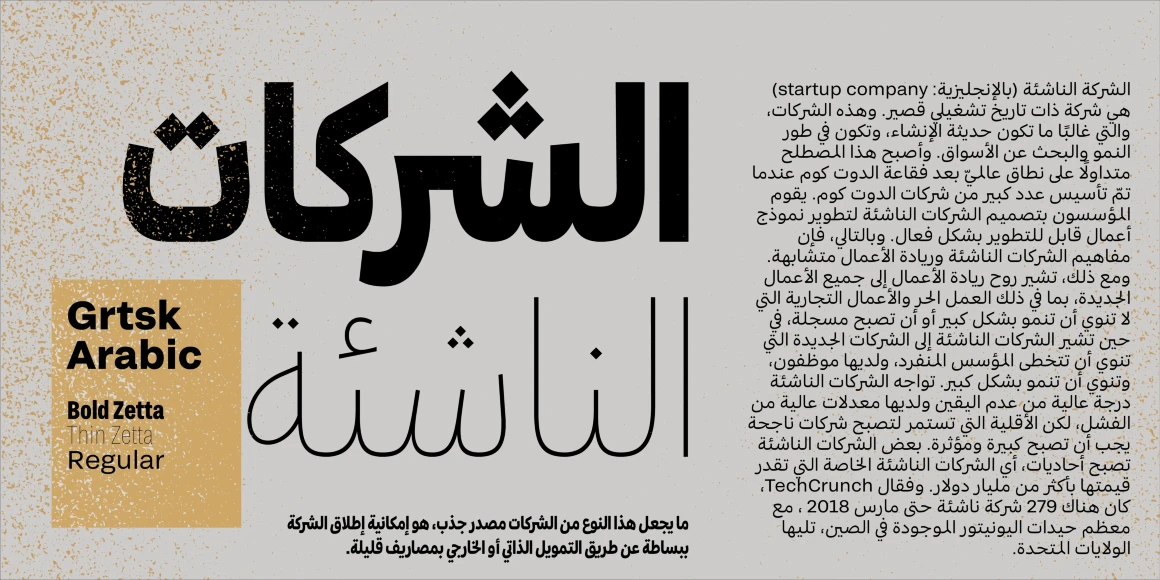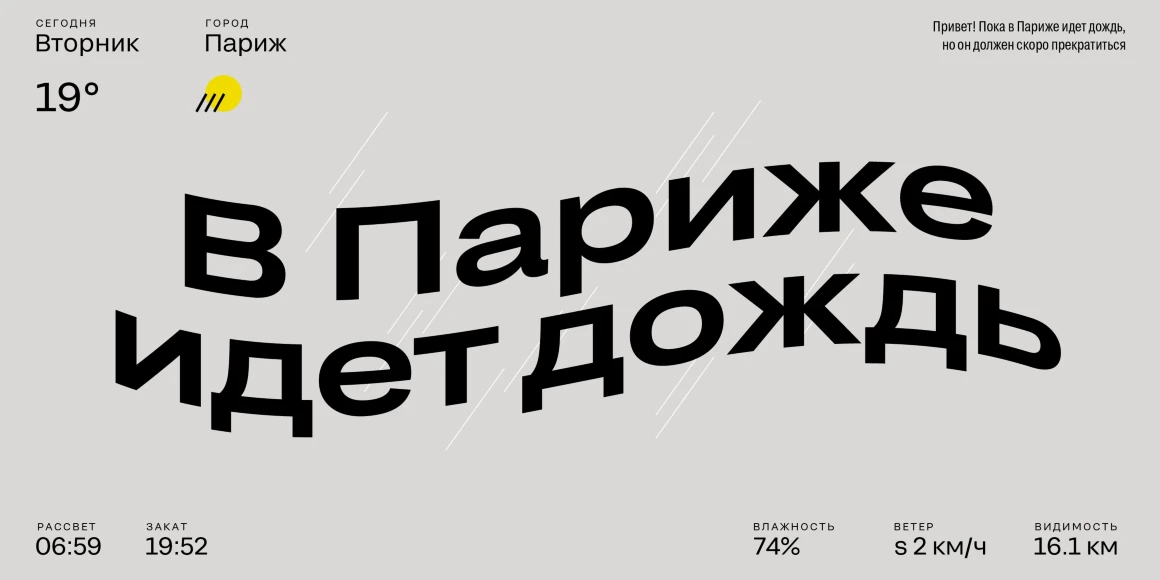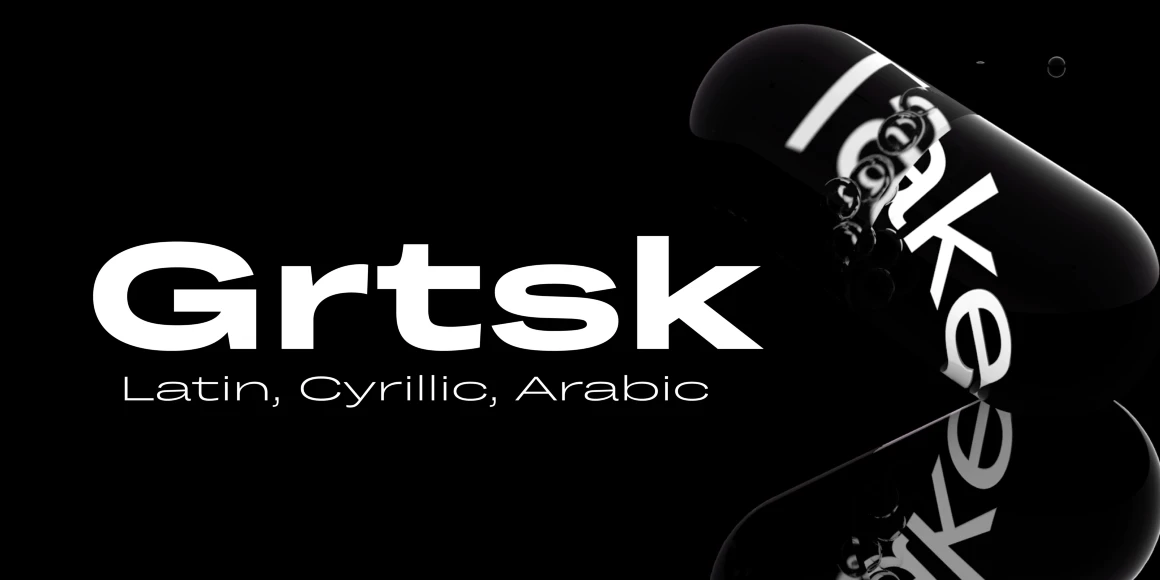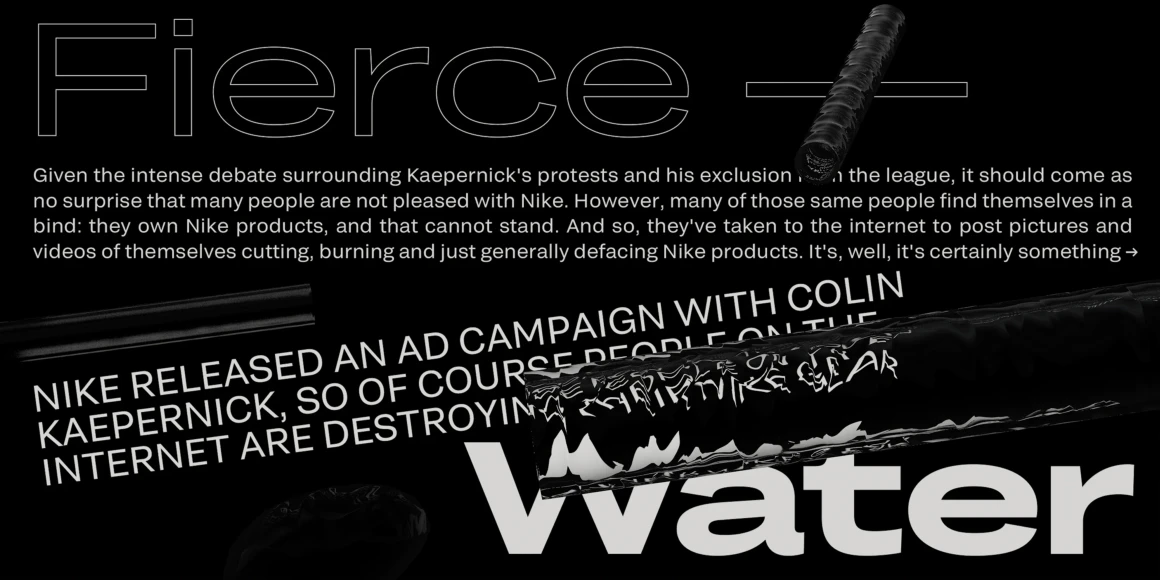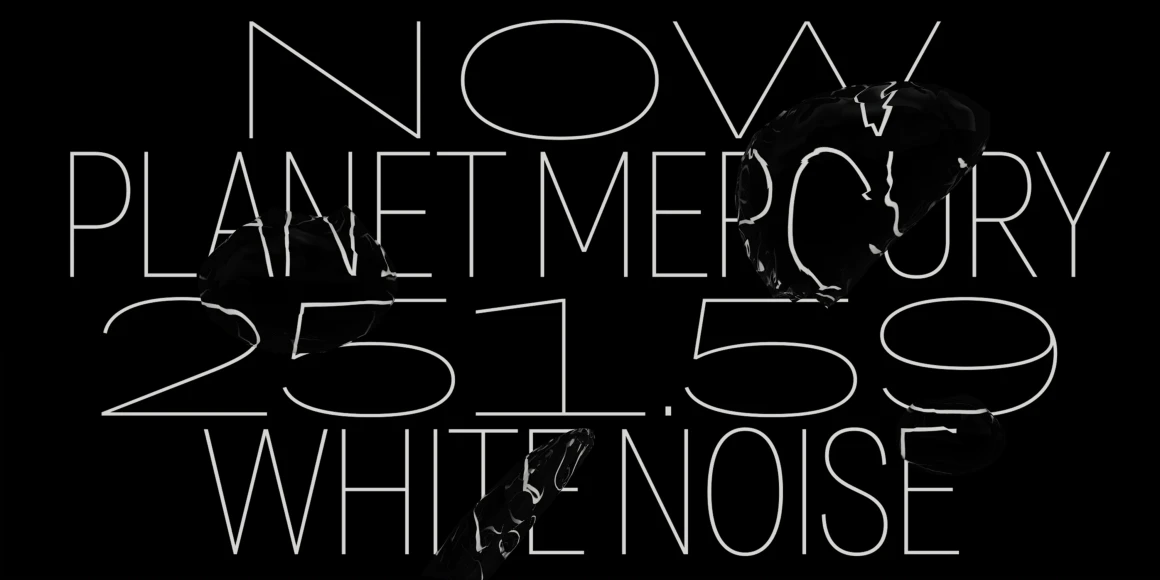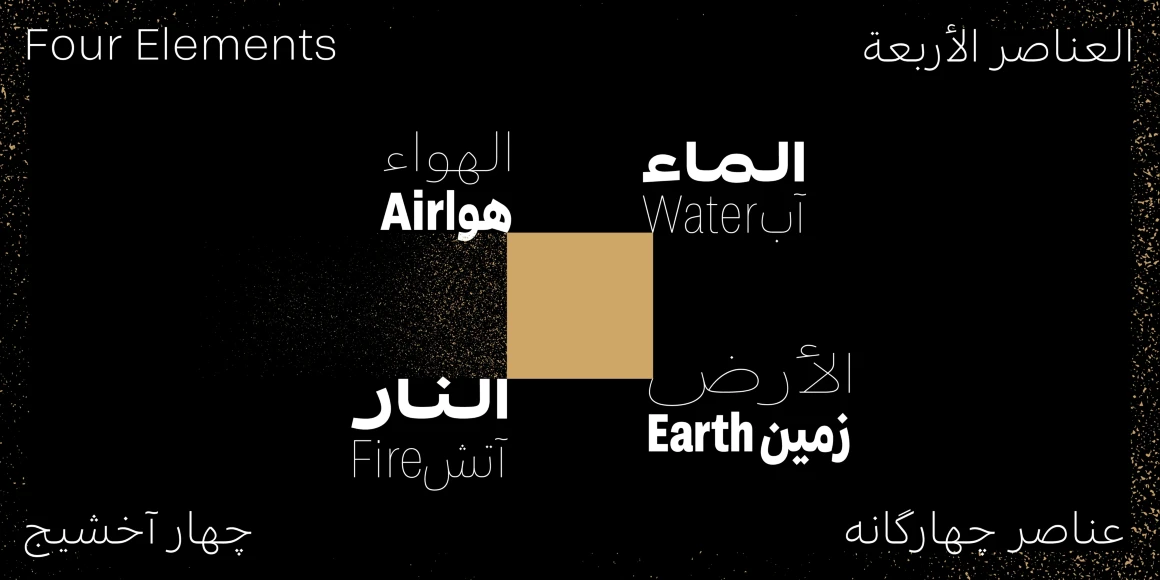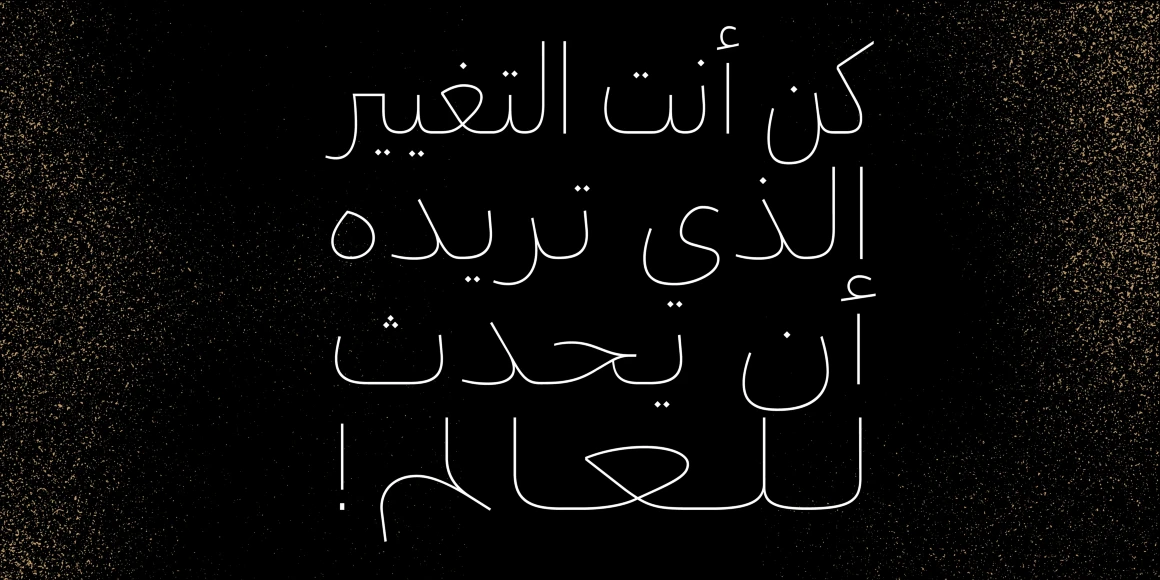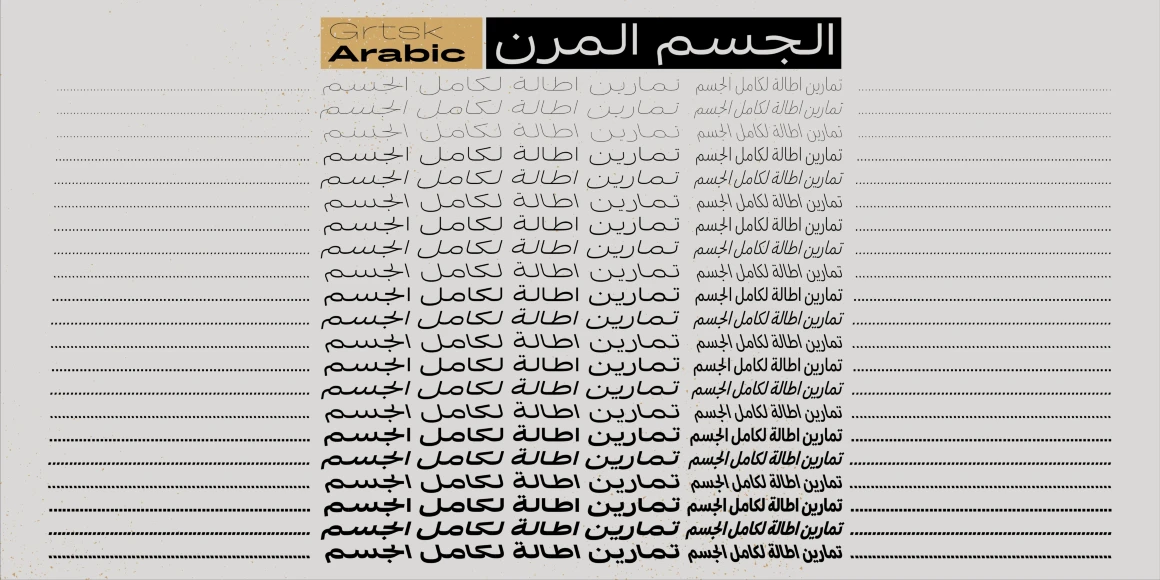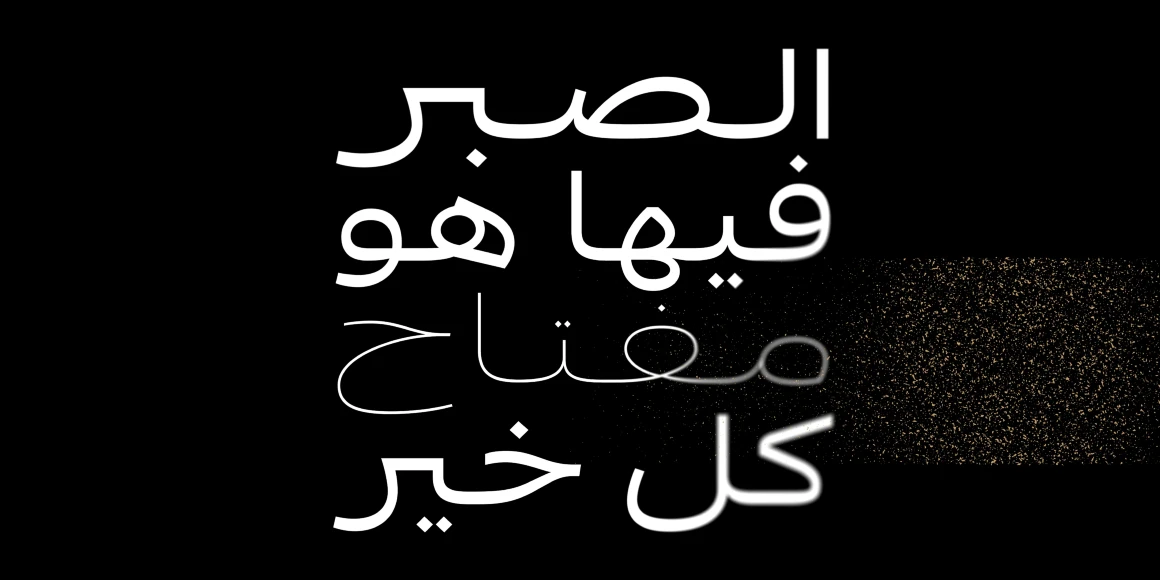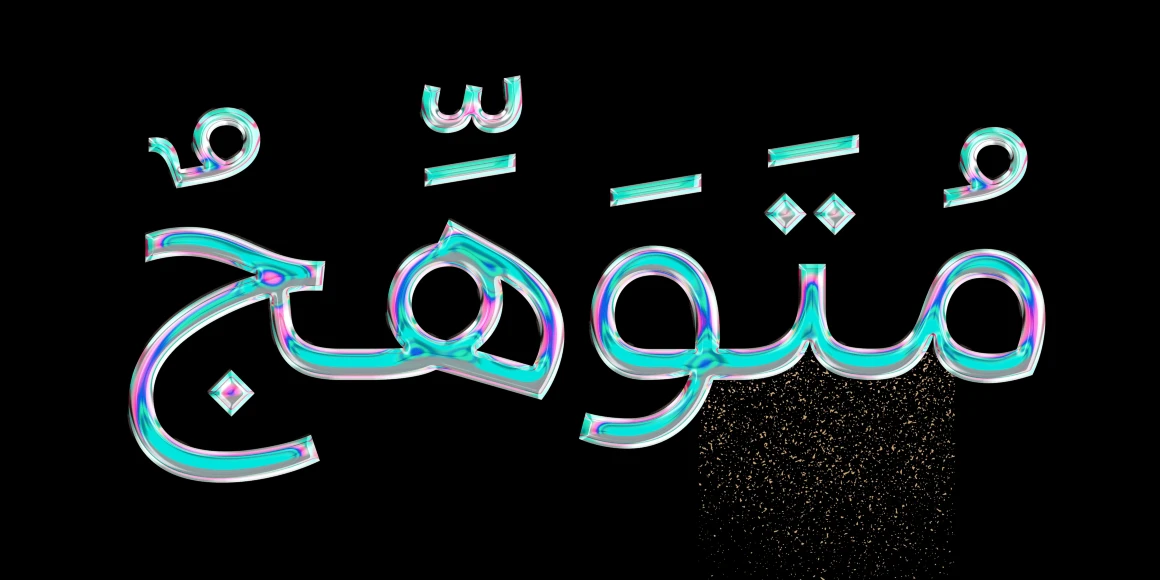
Grtsk
Grtsk is a sans serif superfamily of 126 sans fonts and one variable font combining weight, width, and slant into an infinitely versatile system. With styles from thin to bold, widths from narrow to extra wide, and 15-degree slants and back-slants, it adapts to contexts from expressive to formal. Seven widths are named after metric prefixes, from Zetta 10²¹ narrow to Mega 10⁶ wide. Inspired by grotesques of the 19th and 20th centuries, Grtsk blends humanist and rational forms for contemporary print and digital use.